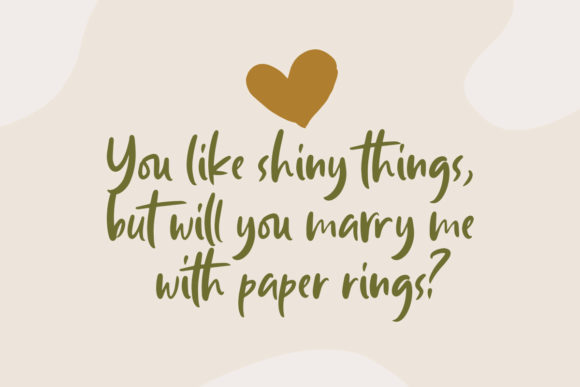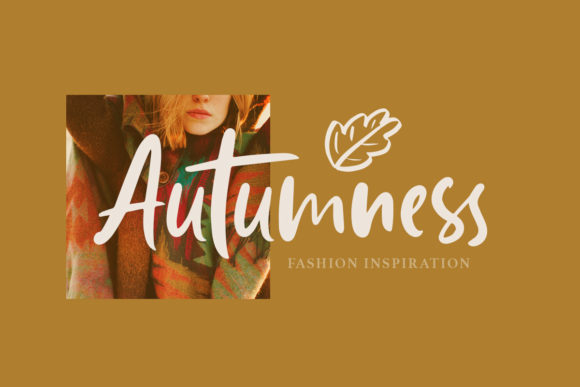
South Louisville Font
db-ku.com - Script & Handwritten -- South Louisville is a playful handwritten font with doodle elements. Fall in love with its incredibly versatile style and use it to create spectacular designs!